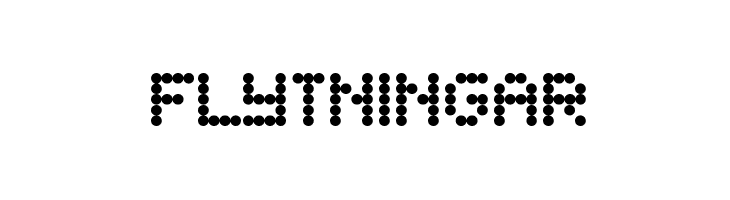
A playful, dotted font with characters formed from small circles.
A bold serif font with high contrast and elegant design.
An elegant, flowing script font with graceful curves and decorative flourishes.